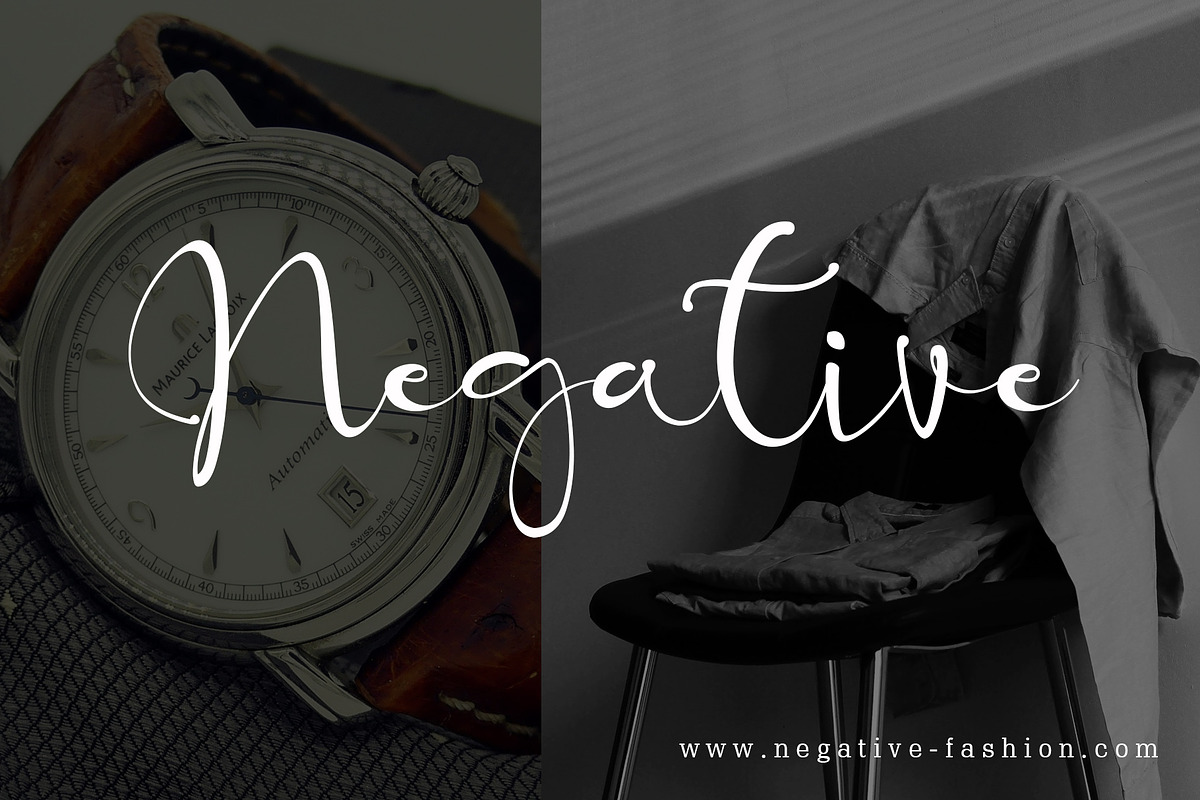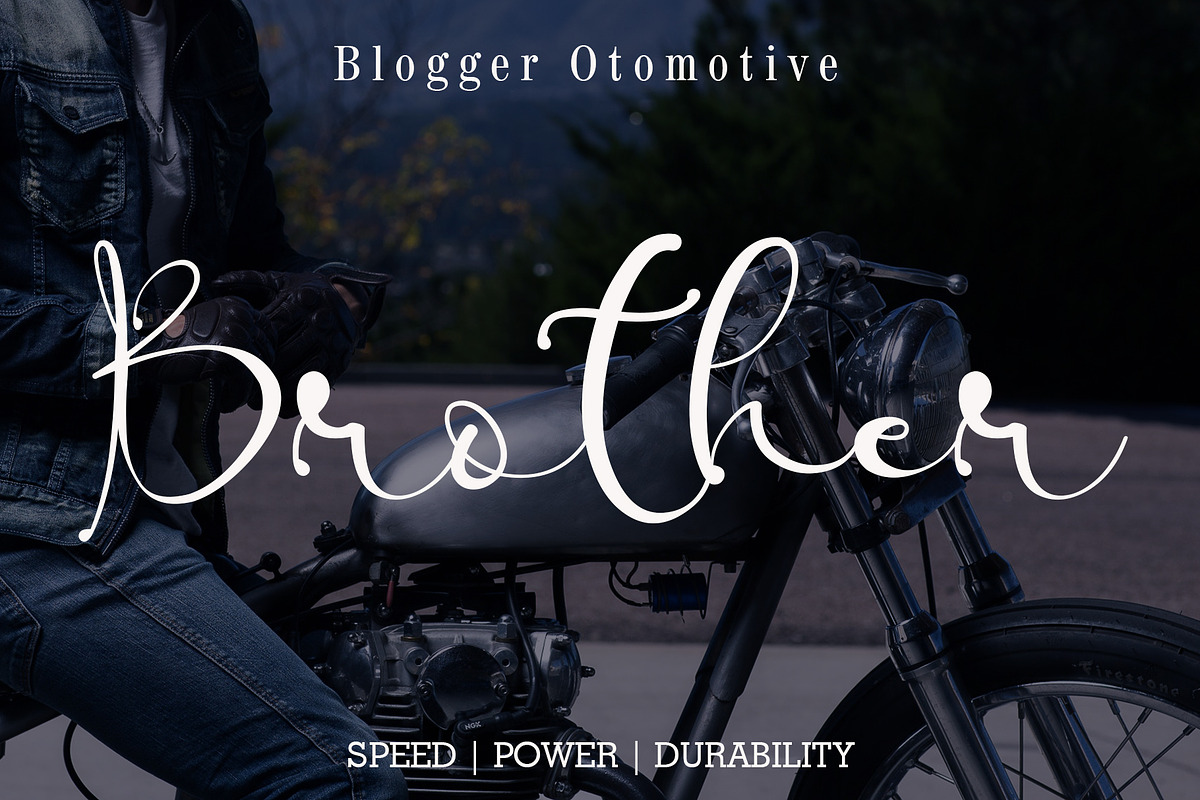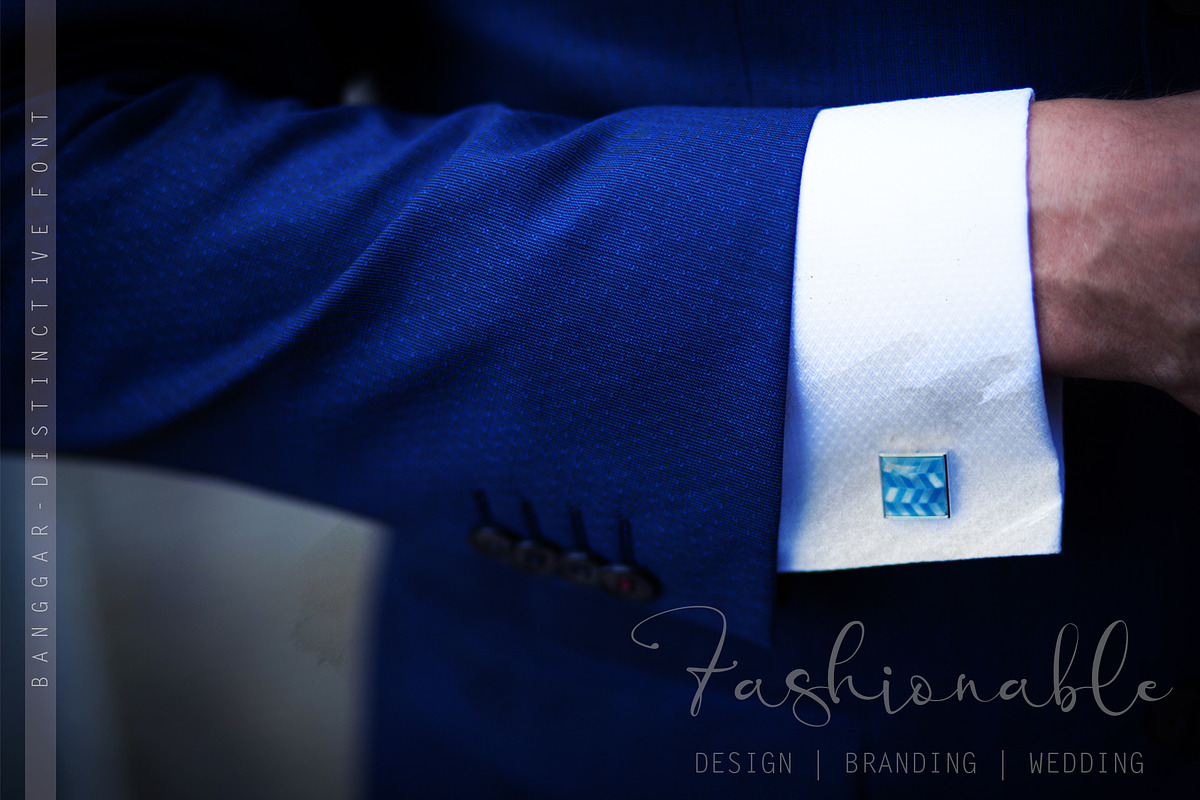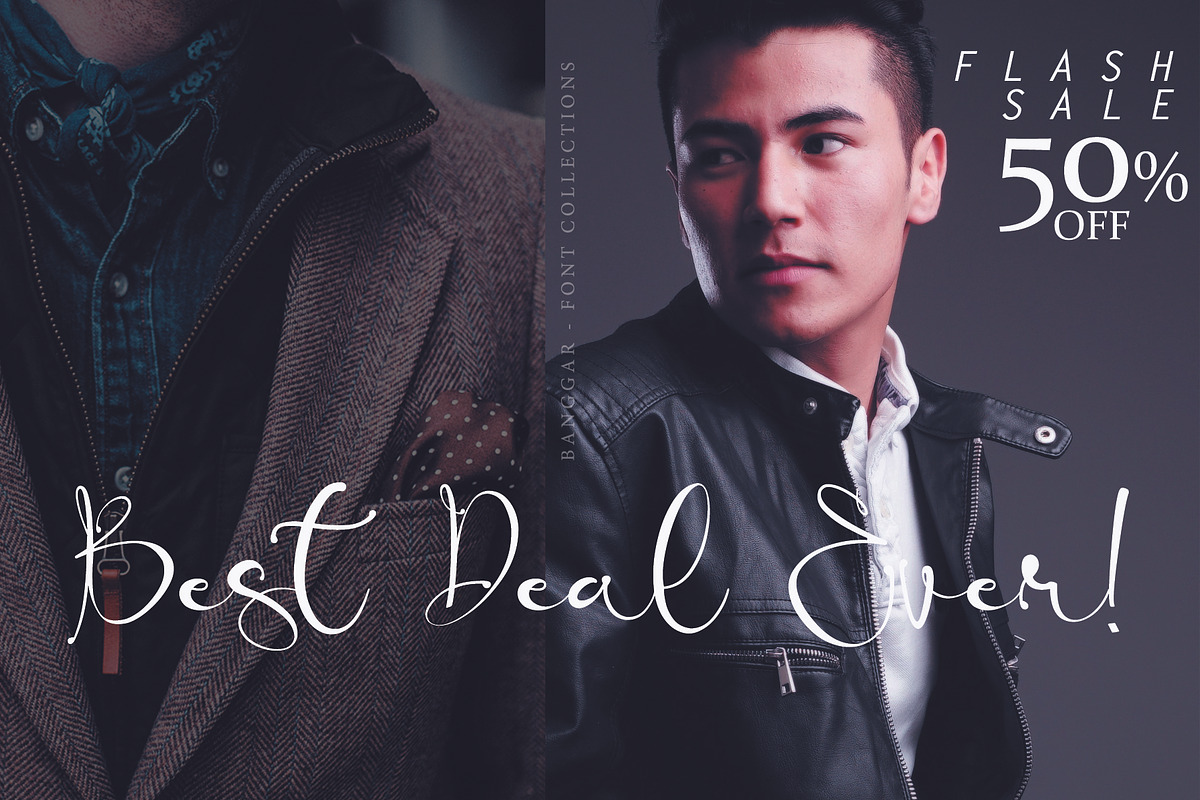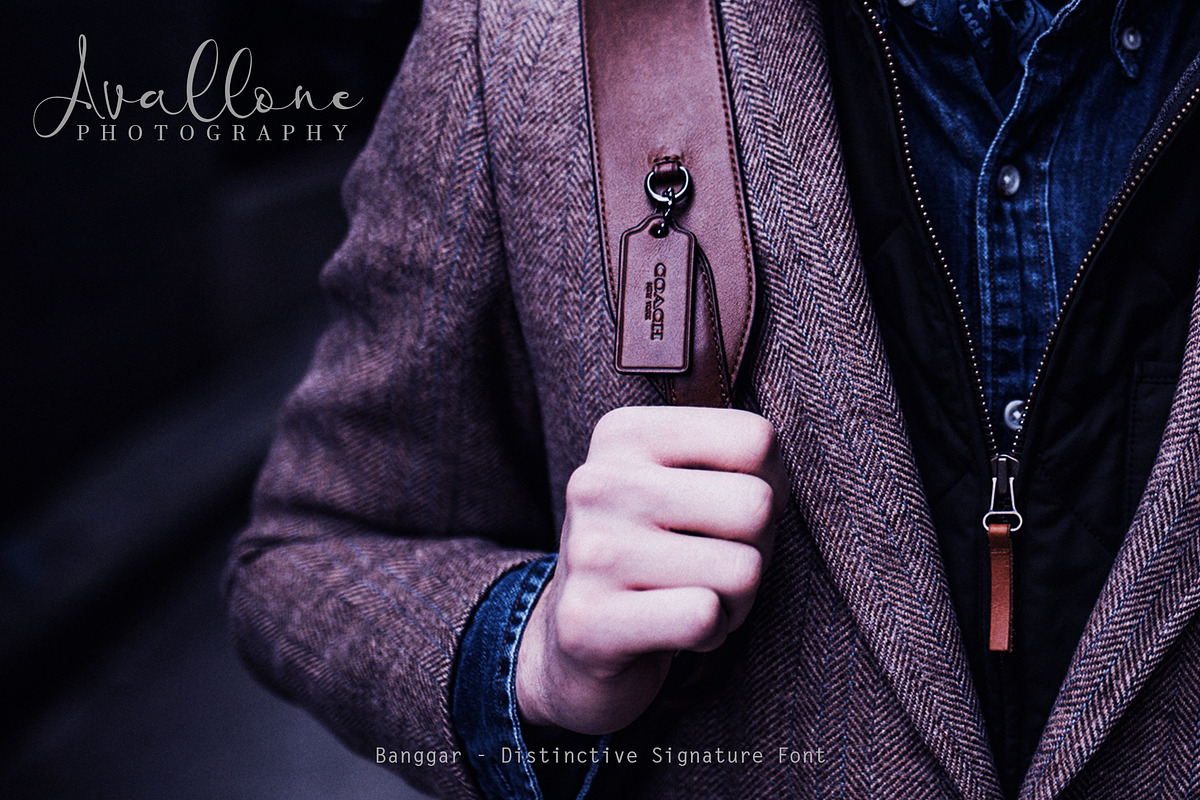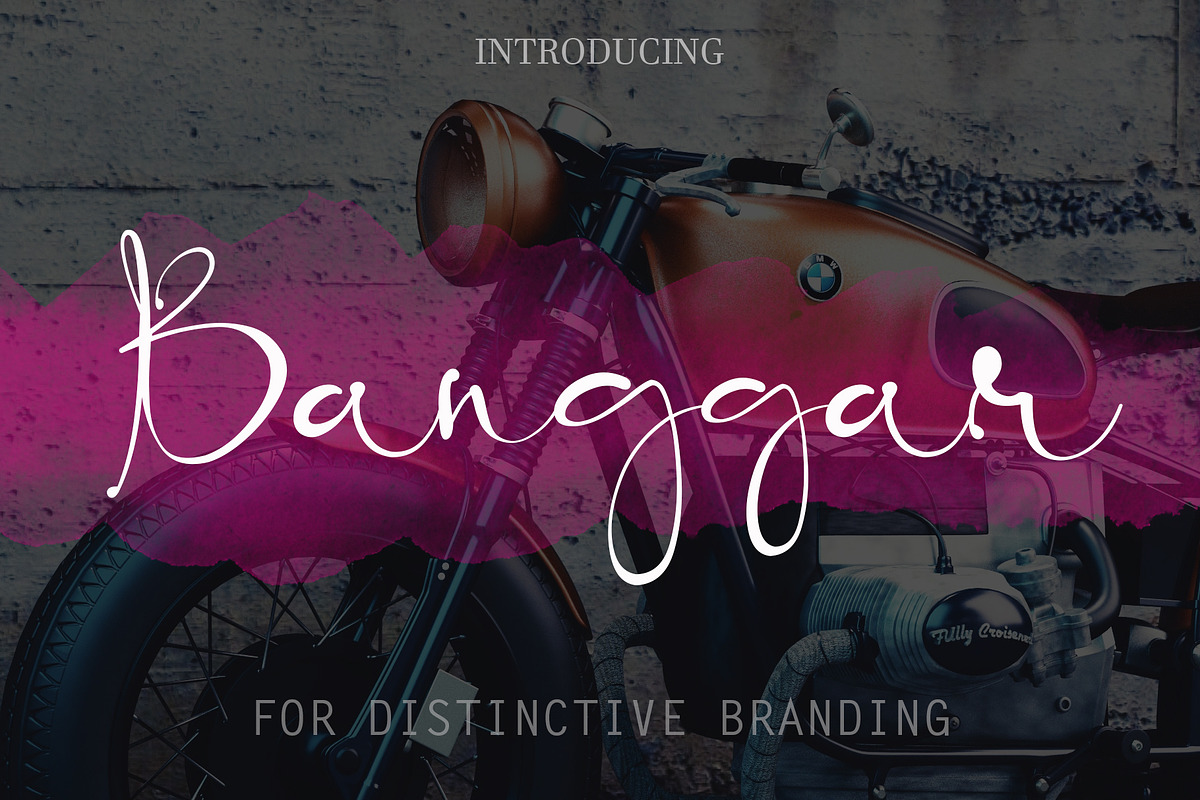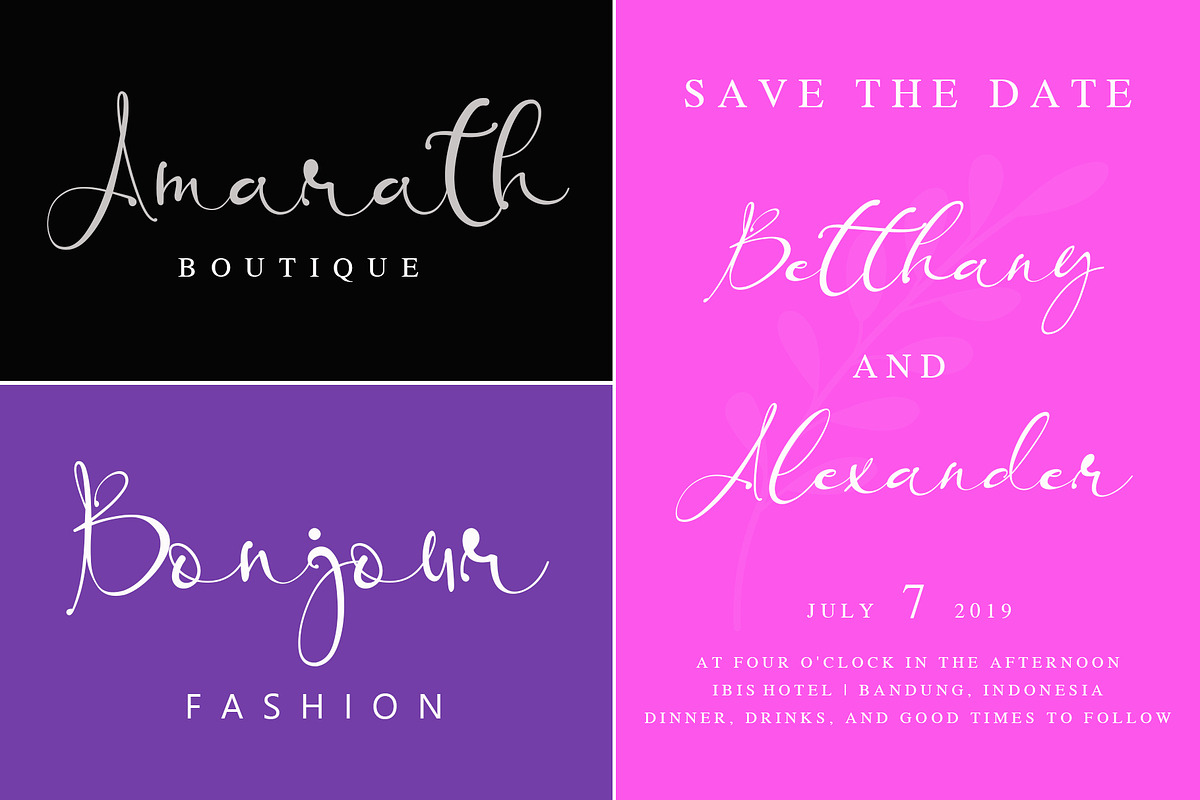
Banggar - Distinctive Signature Font
Banggar - Distinctive Signature Font is a font with simple and classy taste, we keep this font looks classy, readable, elegant, stylish, catchy and absolutly easy to use.
Banggar is the great choice for watermark on photography, signature or signature logo design, album cover, business card, quotes, and many other design project.
Why Banggar - Distinctive Signature Font is worth a look
Banggar - Distinctive Signature Font by Aldedesign fits naturally into Branding, posters, packaging, typography.